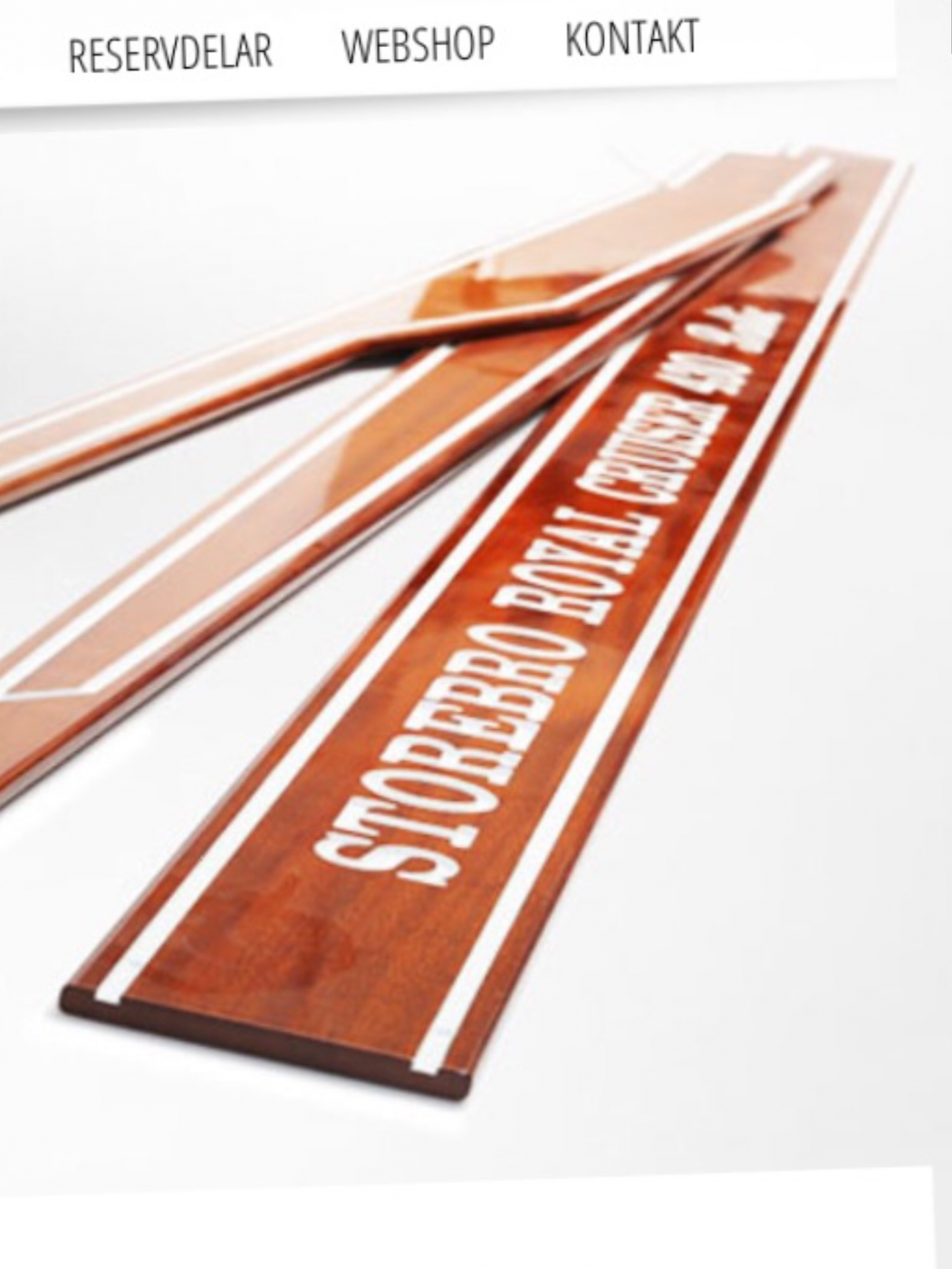
Old boat sign (Storebro Royal Cruiser)
I still think the back one is American Typewriter Bold.
The middle one is certainly ITC Benguiat Bold.
The front one closely resembles Clarendon with rounded serifs, maybe Clarendon standard with a stroke to increase the weight.
Riccardo - I agree with you and am sure it is due to the milling process.
Note the double serif on the right leg of the /R; not many fonts have that. It is definitely not American Typewriter in any weight.